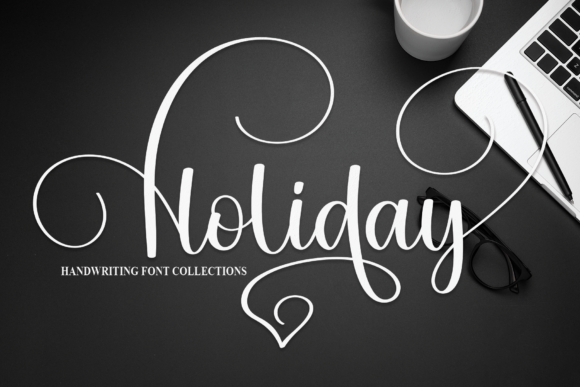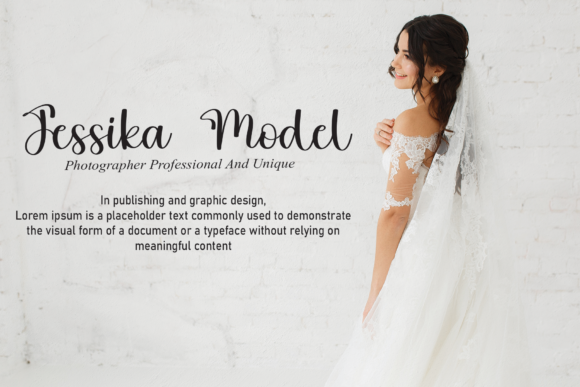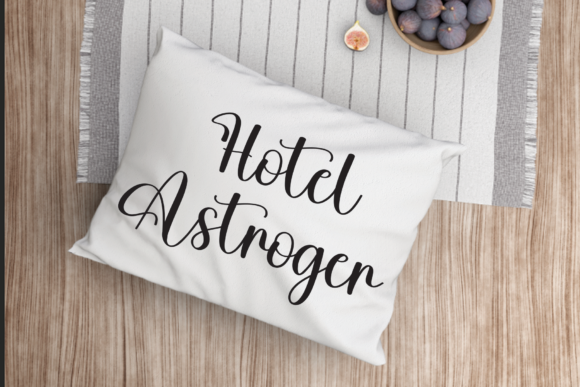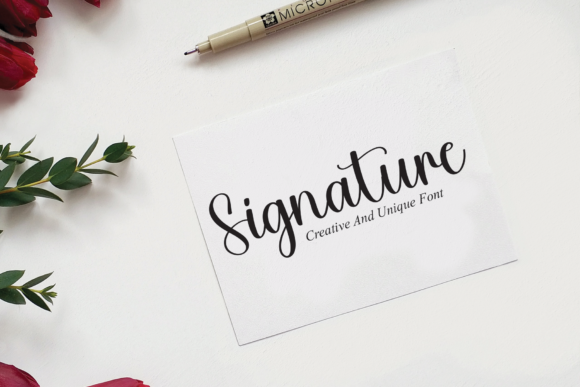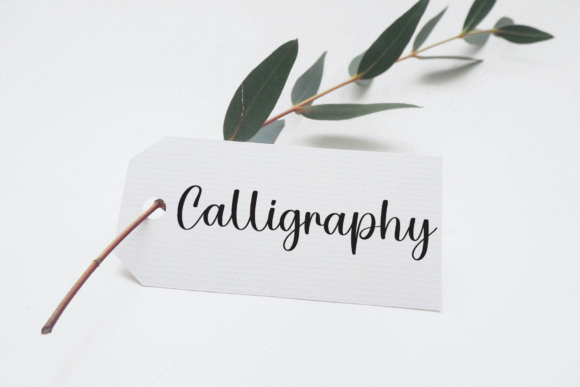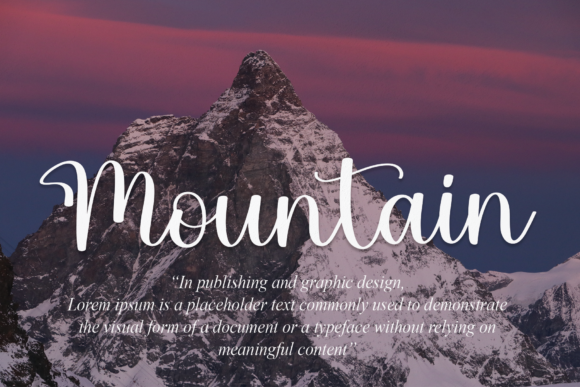
About Holiday Font
Holiday is a gorgeous script font that will give you an extraordinary experience to your designs. Whatever the topic, this font will be a wonderful asset to your font library, as it has the potential to enhance any creation.